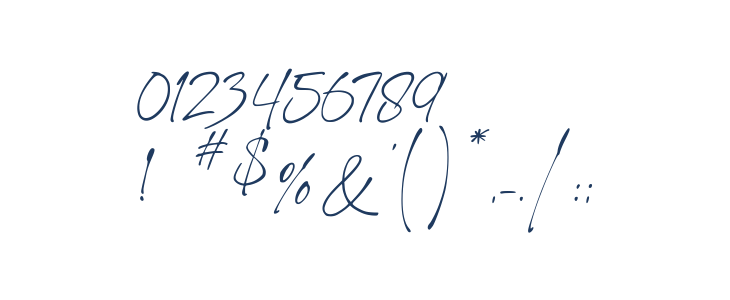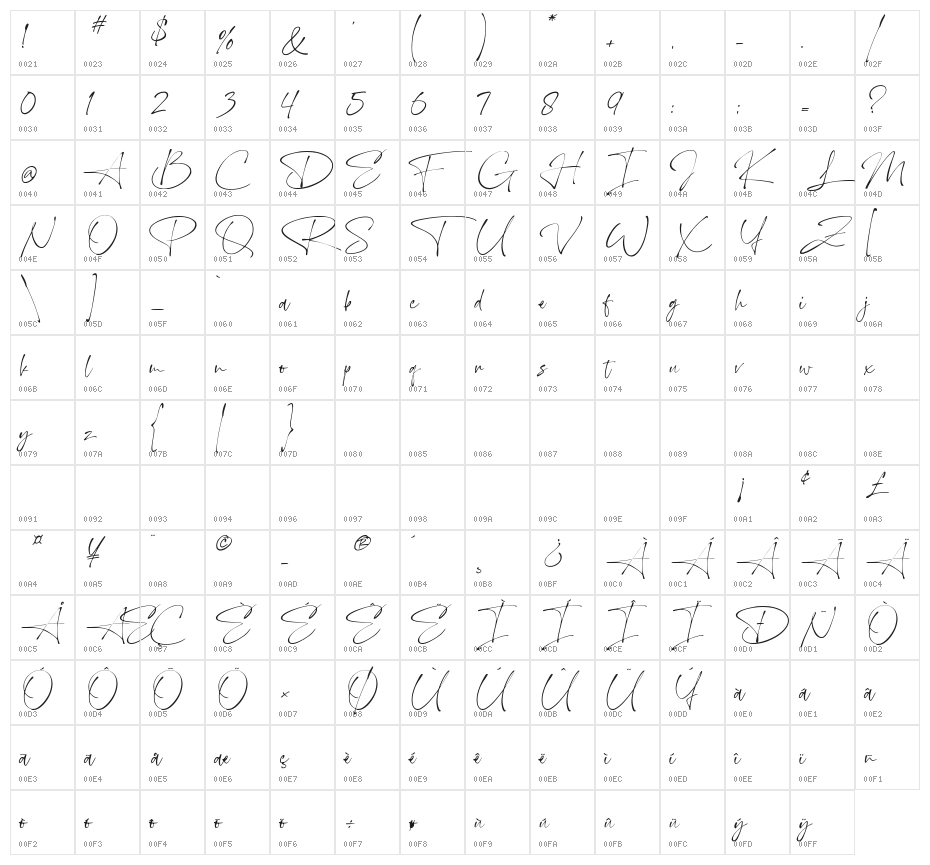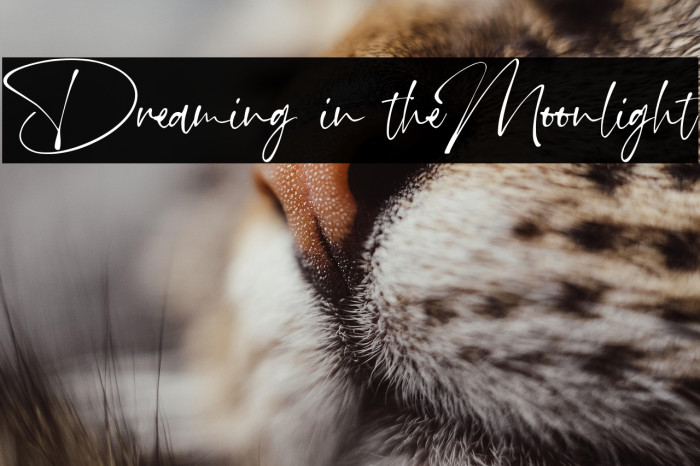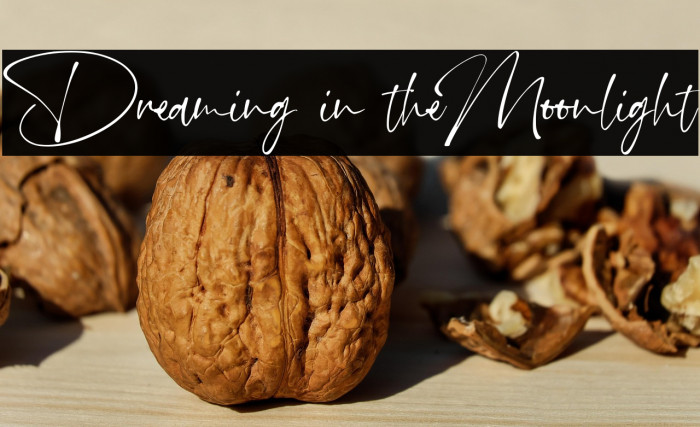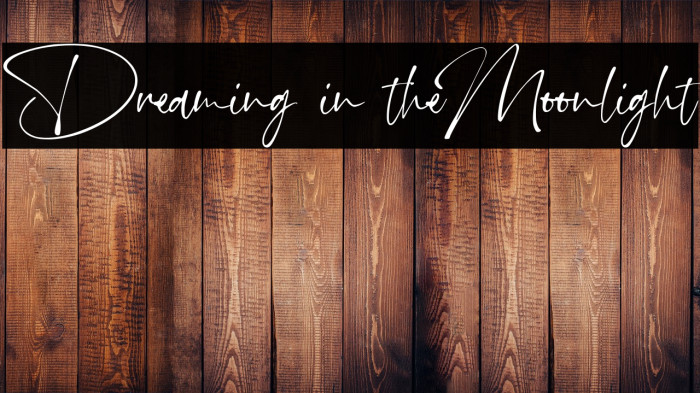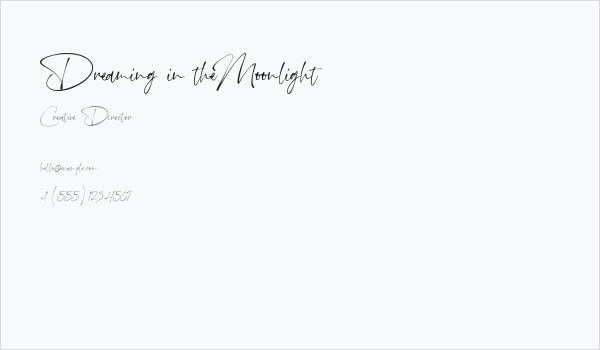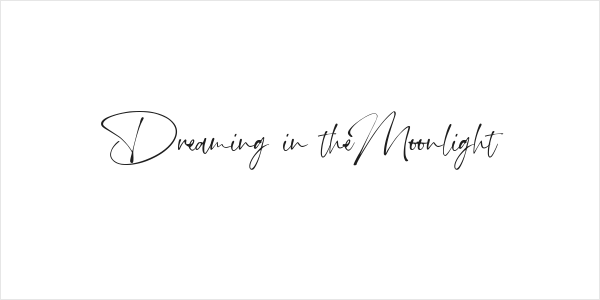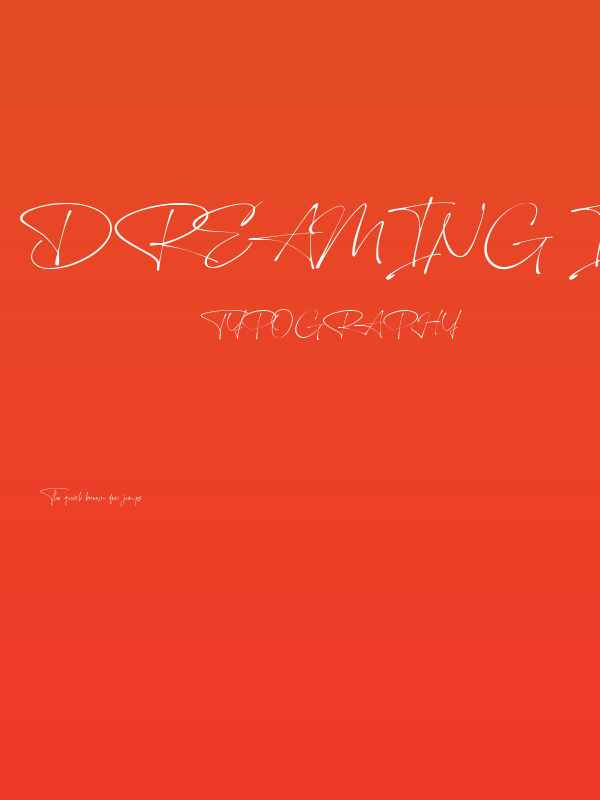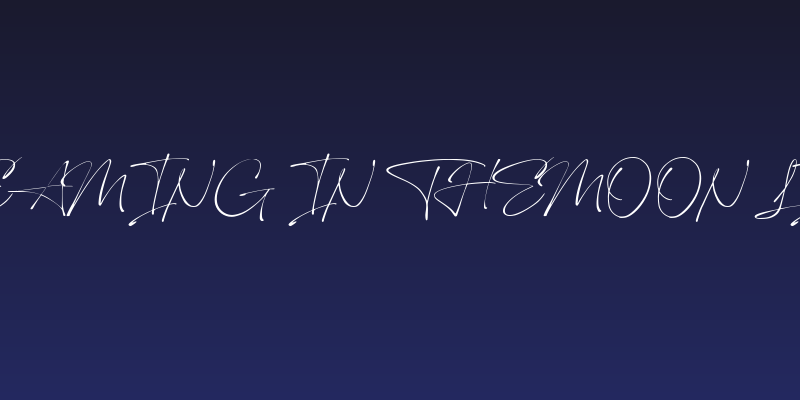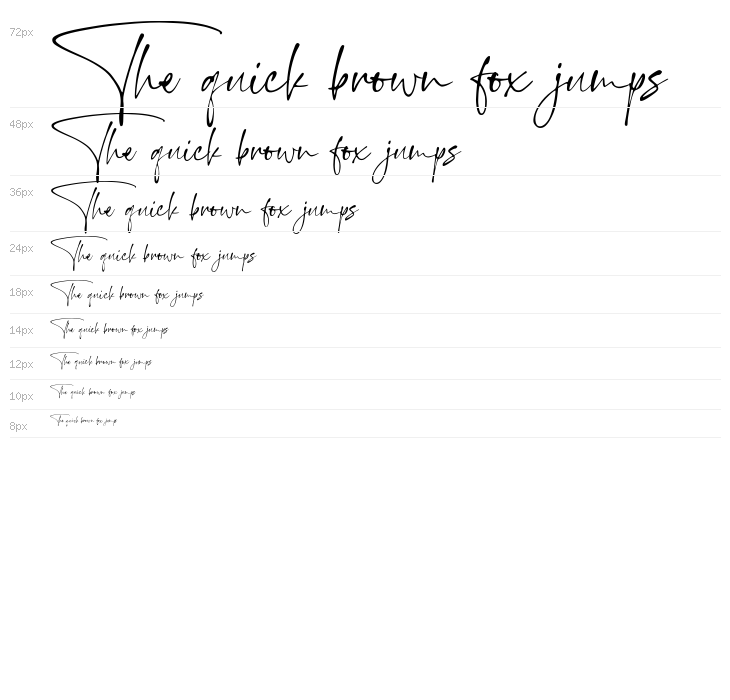
Dreaming in theMoonlight Font
Dreaming in theMoonlight Description
This font exudes a whimsical and artistic flair, characterized by its flowing, cursive style that mimics the fluidity of handwriting. The letters are elegantly elongated with a playful, yet sophisticated touch, making it ideal for creative projects. The uppercase letters are particularly expressive, with dramatic loops and swirls, while the lowercase letters maintain a more consistent and readable form. The numbers and special characters follow the same artistic style, ensuring a cohesive look across all text elements. This font captures a sense of movement and emotion, perfect for adding a personal touch to any design.